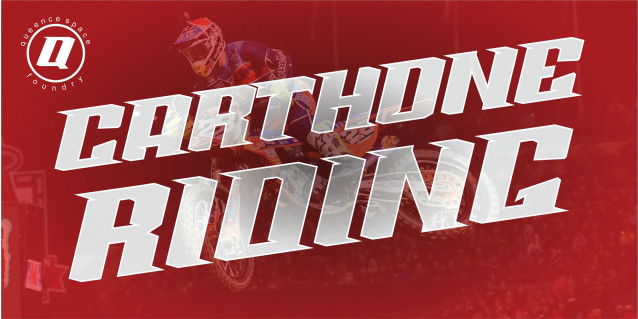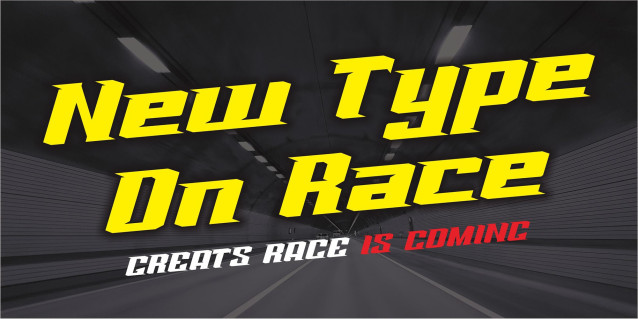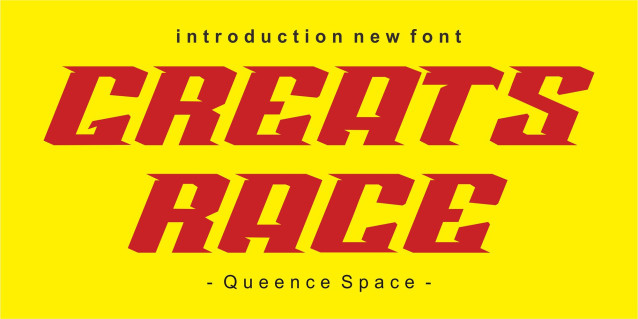
Greats Racing Font
Greats Race is a racing theme font with sharp and consistent angles combined with a hard and strong style. So it looks very fast and powerful.
Greats Race it’s perfect for logotype racing product, racing game covers, sports events, automotive posters, automotive magazine covers, branding, product design, labels and other creative project.